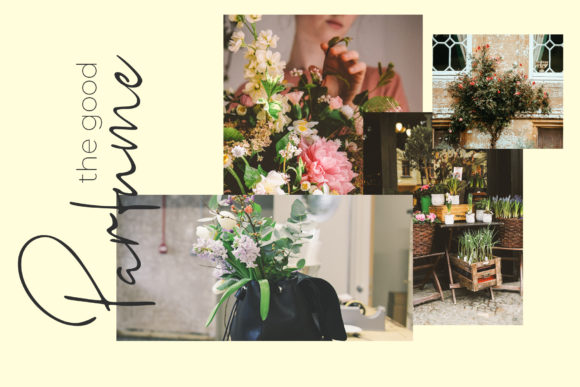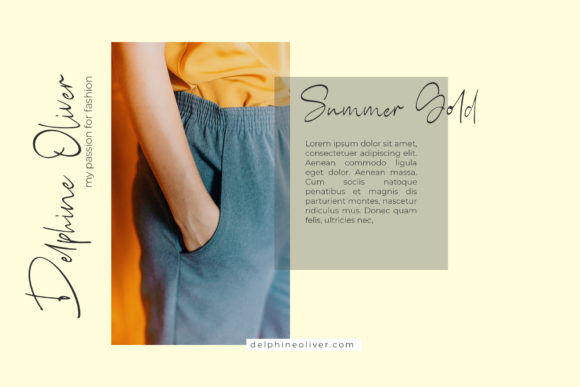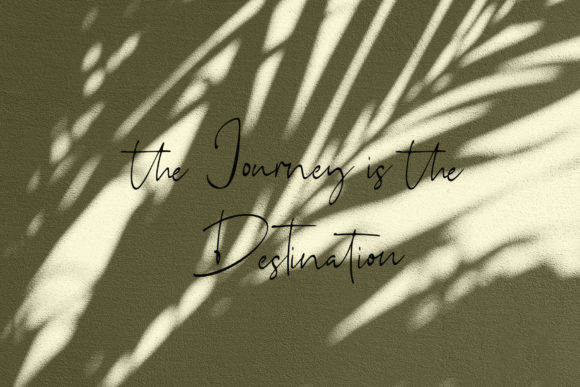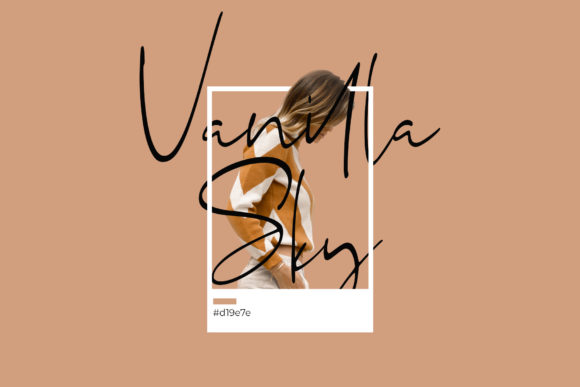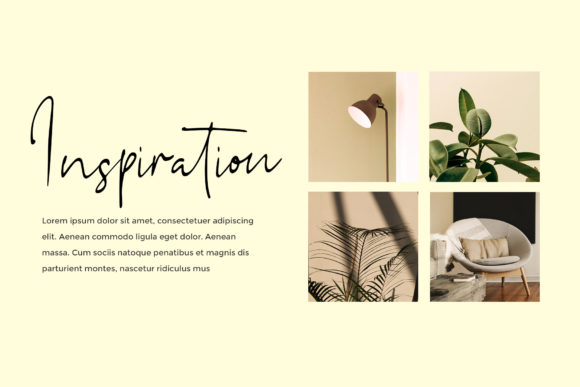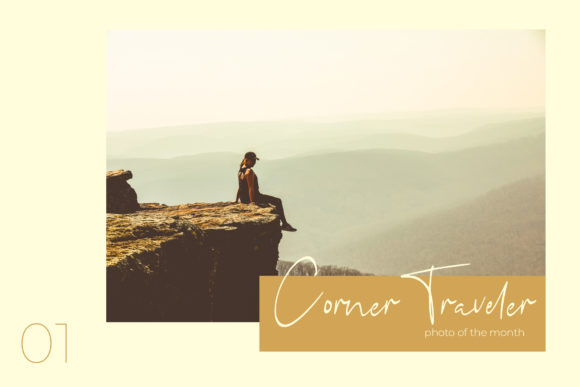
Introduction to Sharpenhill Font
Have you ever been working on a design project and suddenly, the perfect font pops into your head? It’s that ‘aha’ moment when everything clicks, and your creative vision starts to take shape. For designers, finding the right font can be the difference between a mediocre design and a stunning masterpiece. And that’s exactly where the Sharpenhill Font comes in – a high-quality, free download that’s about to become your new go-to design resource.
With its unique, hand-drawn style and transparent background, the Sharpenhill Font is the perfect addition to any creative project. Whether you’re working on a logo, a social media graphic, or a website design, this font will add a touch of authenticity and personality to your work. And the best part? It’s completely free to download and use, making it an invaluable resource for designers of all levels.
In this article, we’ll delve into the world of the Sharpenhill Font, exploring its features, benefits, and how to use it to elevate your designs to the next level.
Sharpenhill Font
- Features a unique, modern design with clean lines and elegant typography
Honest Review: Sharpenhill Font
I recently had the chance to work with the Sharpenhill Font, and I must say, it’s a high quality design resource that can be a great addition to any creative project. ✨ The font has a clean and modern aesthetic that works well in a variety of contexts, from editorial design to branding.
The Sharpenhill Font is available for free download, which is a huge bonus for designers on a budget. However, be aware that the font comes with a transparent background, which can sometimes be a challenge to work with. ⚠️
- High quality design with a modern aesthetic
- Clean and easy to read
However, the font’s limitations lie in its limited character set and the potential difficulties of working with a transparent background. ⚠️
Overall, I’d say the Sharpenhill Font is a great resource for designers looking for a high quality, modern font. While it has its limitations, it’s definitely worth considering for any creative project. ✨
Tips for Getting the Most Out of the Sharpenhill Font
Use the Sharpenhill Font in combination with other design elements to create visually appealing designs. Experiment with different font sizes and styles to add depth and interest to your designs. The Sharpenhill Font is a versatile design resource that can be used for a variety of creative projects.
The Sharpenhill Font is perfect for designers, writers, and creatives who need a high-quality font for their projects. It can be used for a variety of applications, including presentations, documents, social media graphics, and more. With its transparent background and modern design, the Sharpenhill Font is an essential design resource for anyone looking to elevate their creative projects.